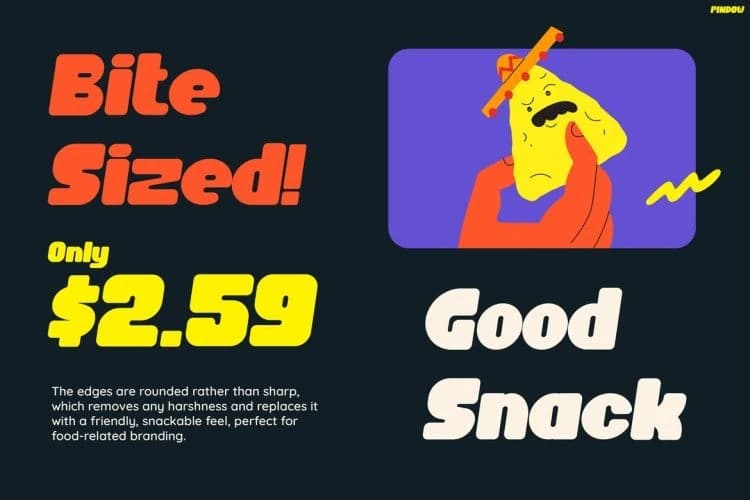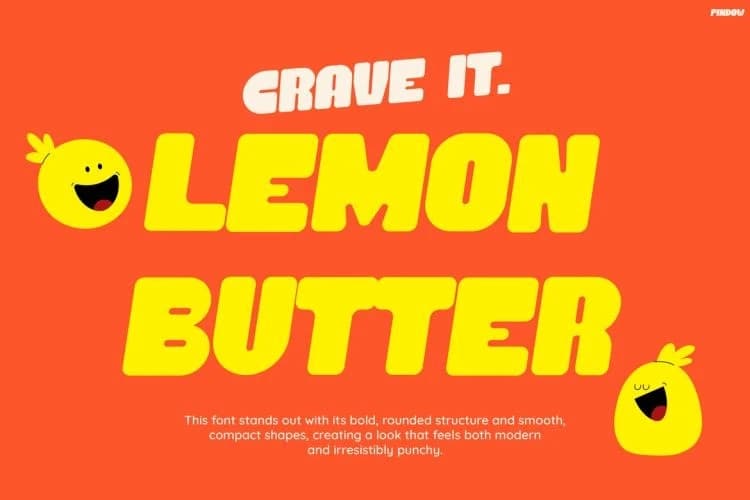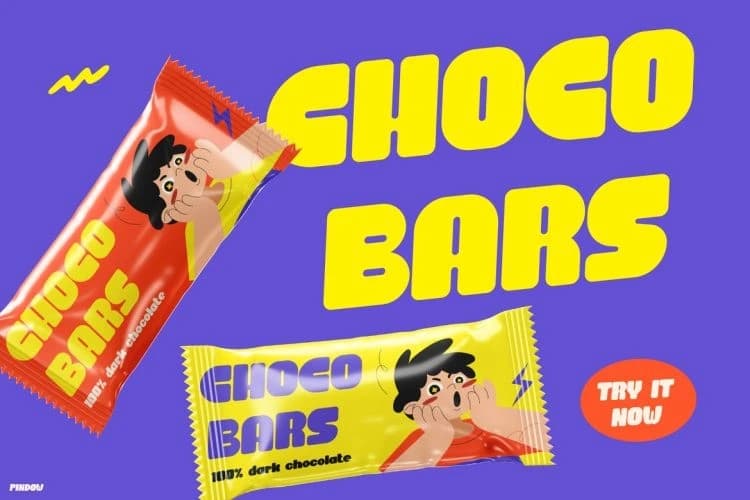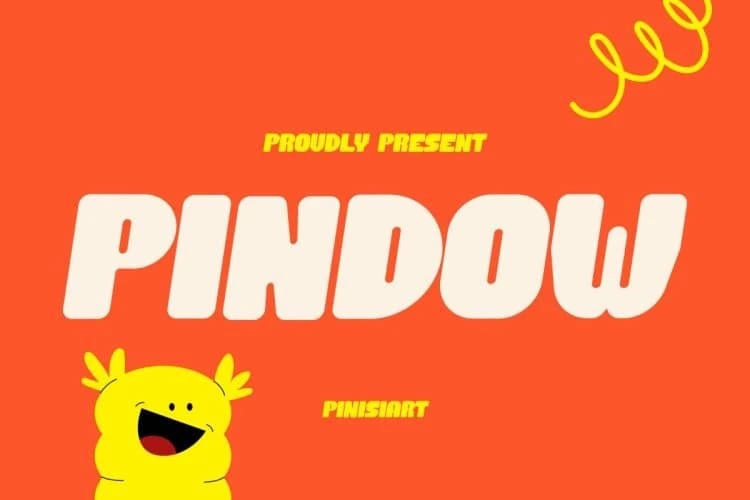
Pindow Font is a vibrant, chunky display typeface that instantly grabs attention with its bold curves and soft edges. At first glance, it radiates fun and energy; therefore, it feels highly engaging and memorable.